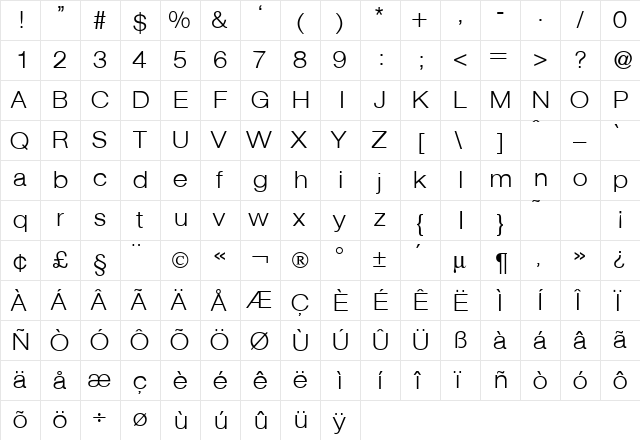
AgentExtLgtDB Normal Font Preview
AgentExtLgtDB Normal
Design Context for AgentExtLgtDB Typeface
AgentExtLgtDB offers clean, dependable letterforms without strong stylistic allegiance, making it a practical choice for designers who need flexibility.
Pro Tip: Use AgentExtLgtDB in both headline and body roles to test its range before committing to a single application.